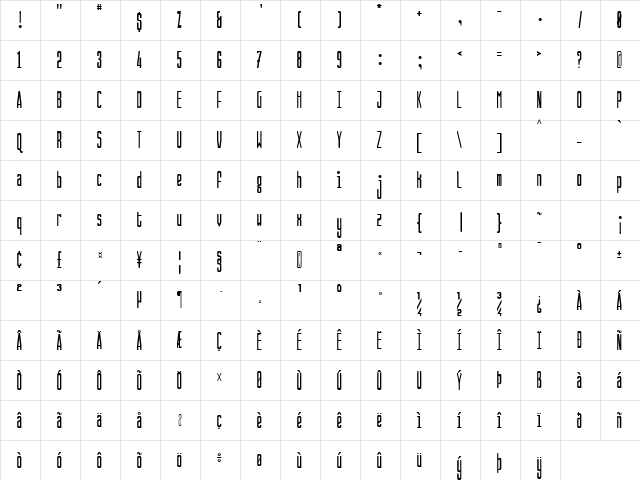
Jonarun Regular
| Designer | Doug Peters |
Design Context for Jonarun Typeface
Jonarun offers clean, dependable letterforms without strong stylistic allegiance, making it a practical choice for designers who need flexibility.